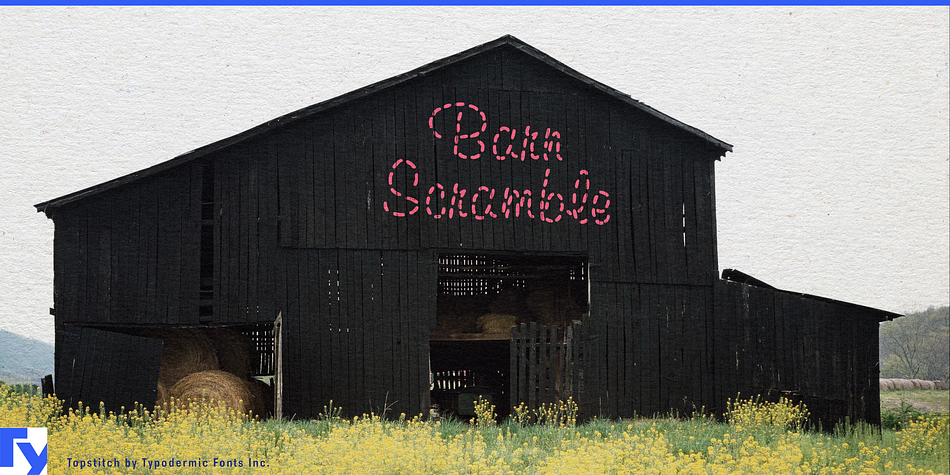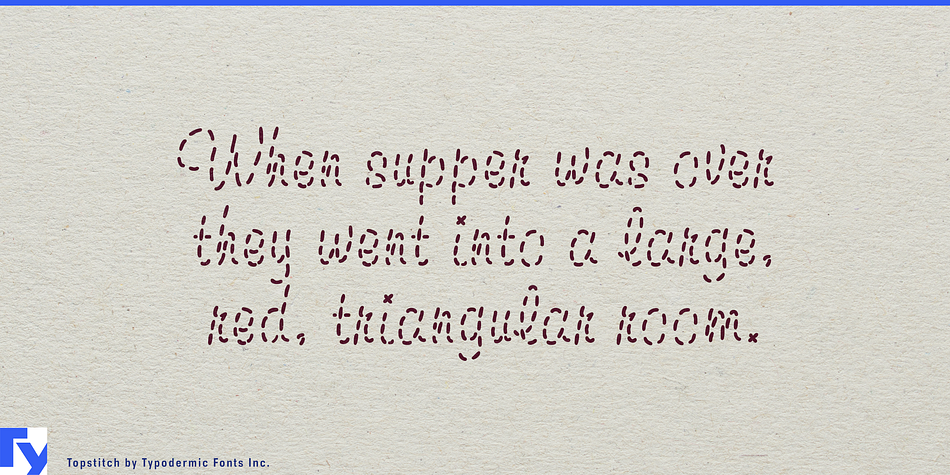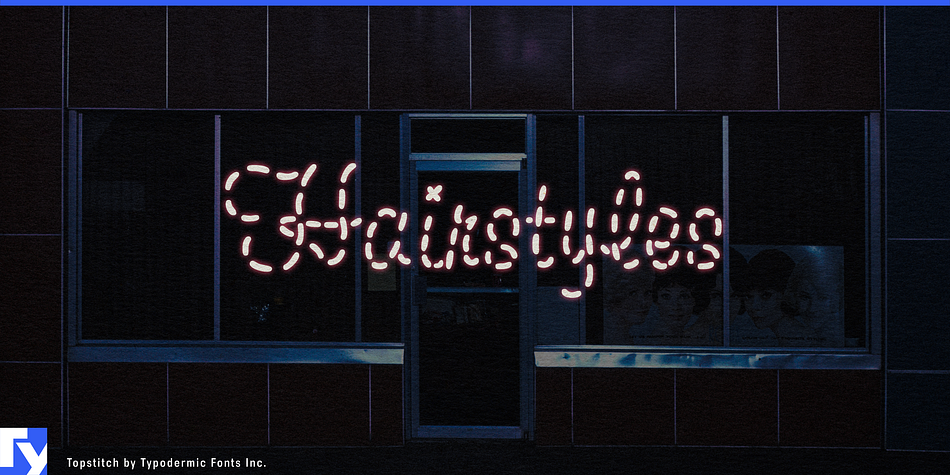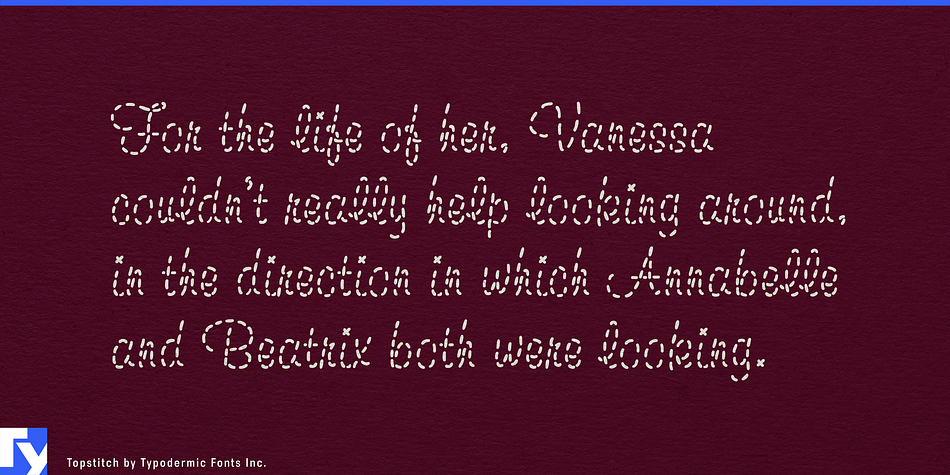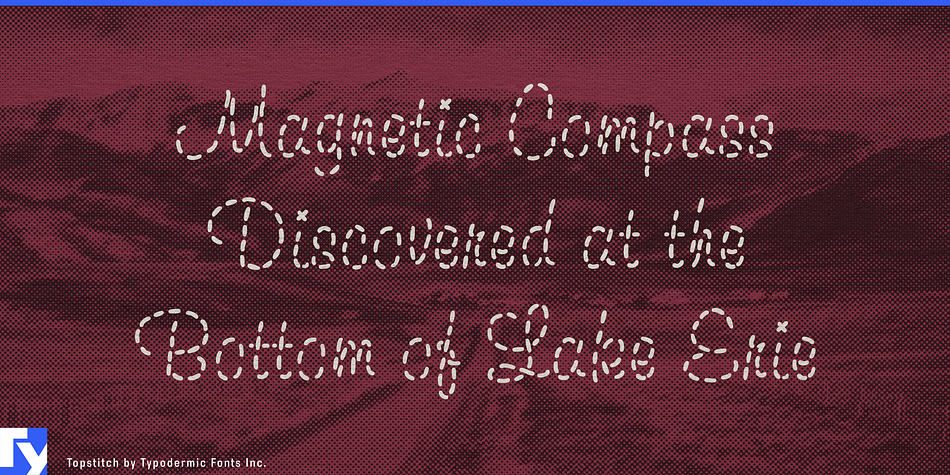
Topstitch is a novelty and hand display font published by Typodermic Fonts Inc.
Topstitch is a font that looks like authentic hand stitching. It’s a non-joining script, just slightly imperfect like real handmade embroidery. The letterforms are reminiscent of Murray Hill with their large x-height and open loops.